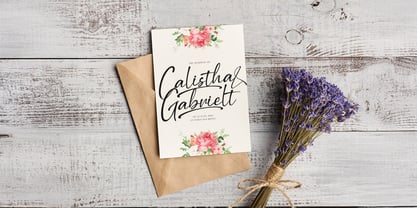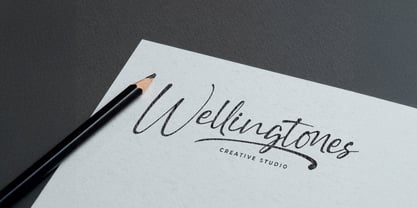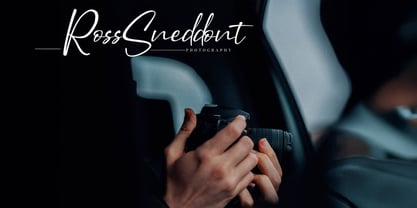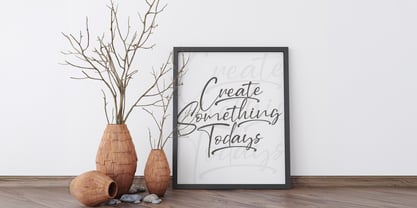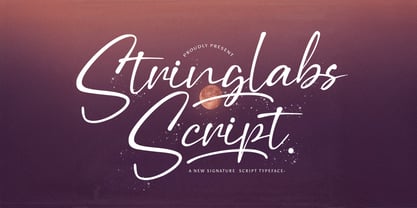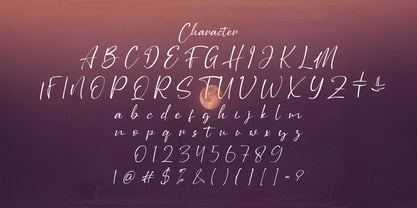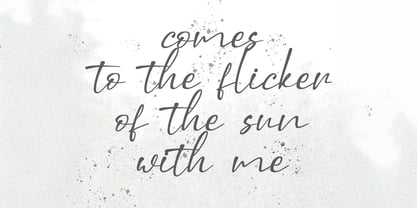
Stringlabs Script
by Stringlabs Creative Studio
The Stringlabs Script Font Family was designed by Virgiawan Listanto and published by Stringlabs Creative Studio. Stringlabs Script contains 1 styles.
Stringlabs Script is a lively handwritten font that combines modern style with a natural, free flowing touch. Its smooth curves and playful movement make it perfect for adding personality and charm to any design. Whether you're working on logos, social media posts, invitations, or packaging, Stringlabs Script delivers a handcrafted look that feels both stylish and approachable.
Designers: Virgiawan Listanto
Publisher: Stringlabs Creative Studio
Foundry: Stringlabs Creative Studio
Design Owner: Stringlabs Creative Studio